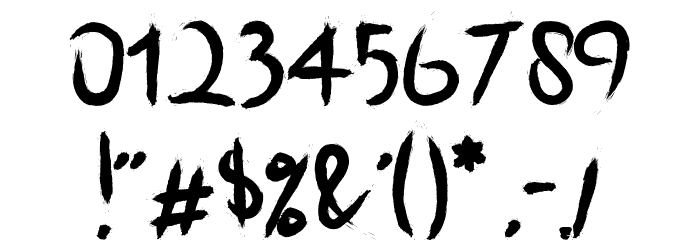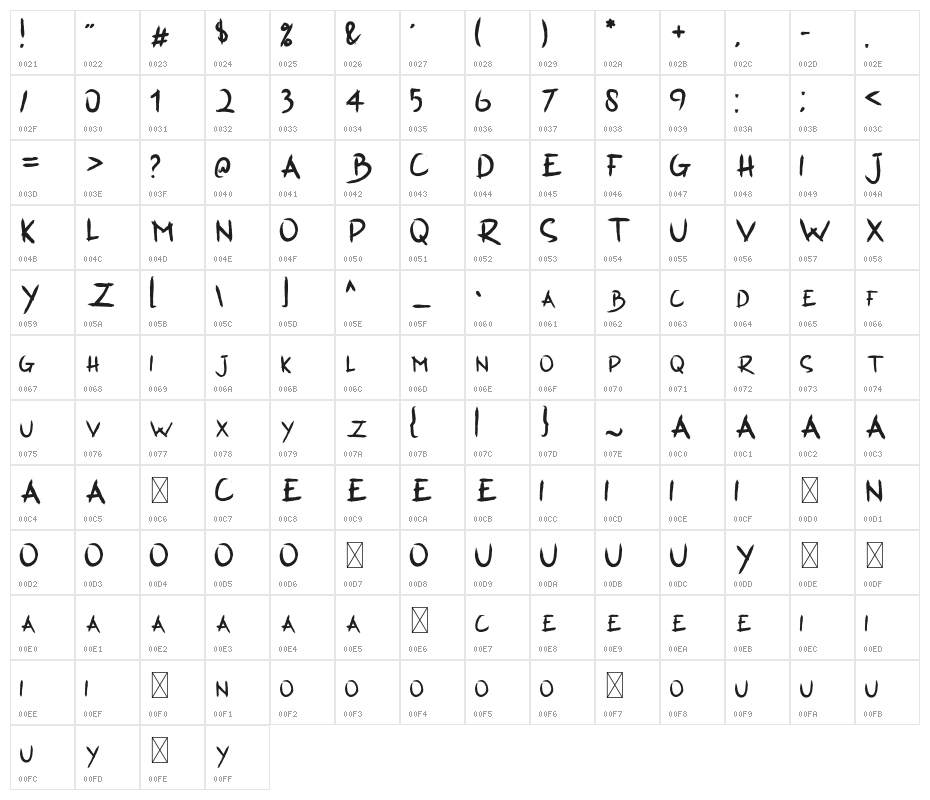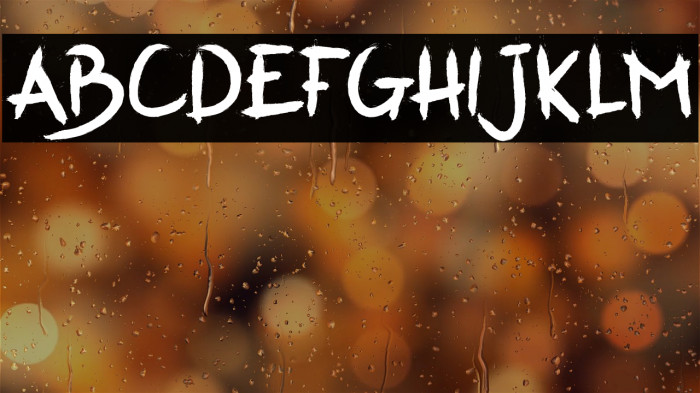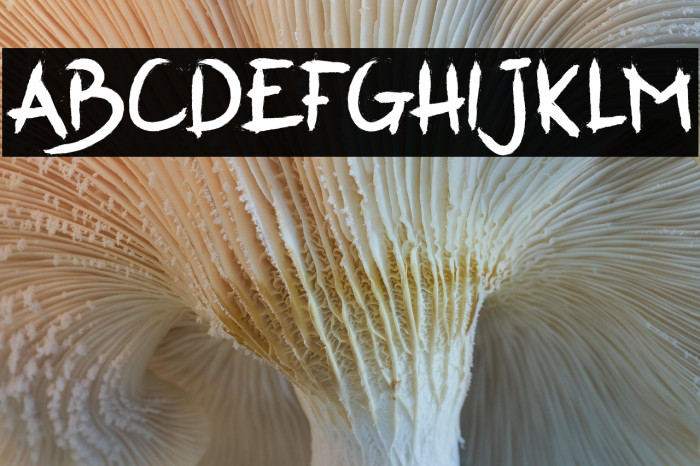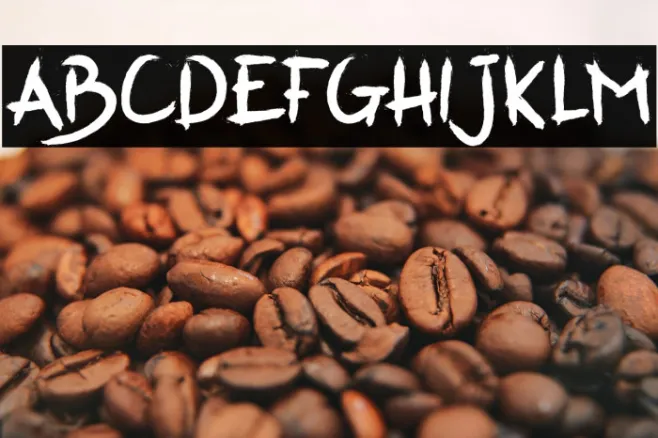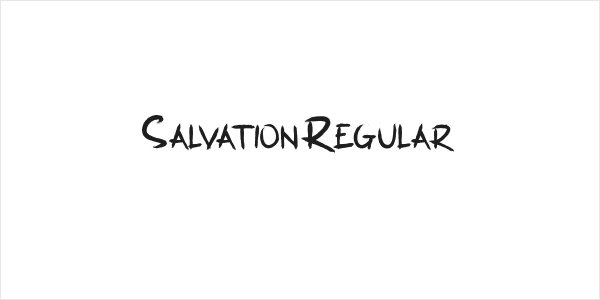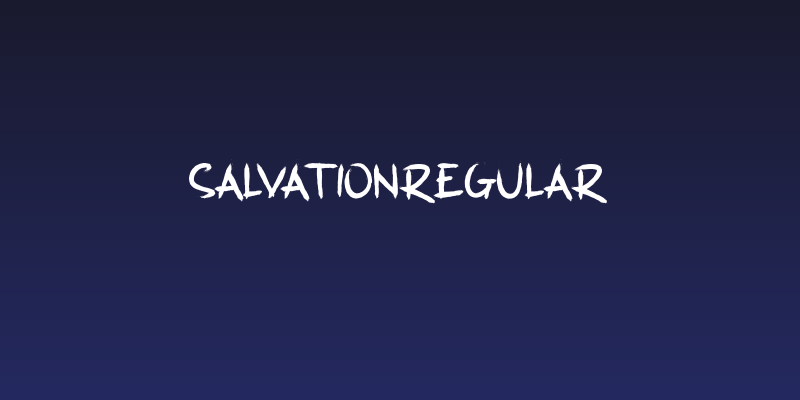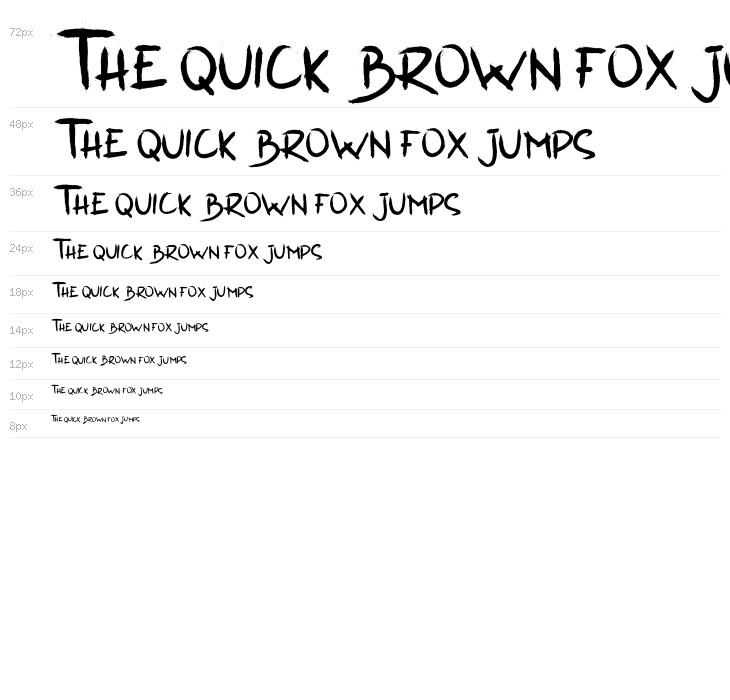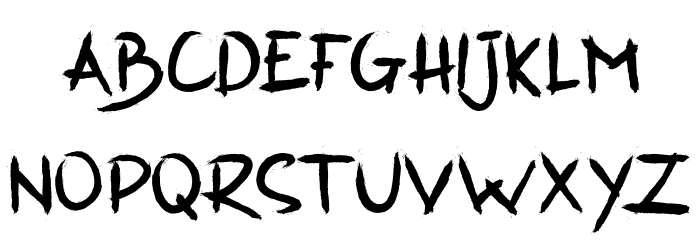
SalvationRegular Font
SalvationRegular Description
This font features a bold, expressive style with a hand-drawn appearance. The strokes are uneven and dynamic, giving it a lively and energetic feel. The characters are slightly slanted, adding to the casual and informal aesthetic. The uppercase and lowercase letters maintain a consistent style, with a rough texture that suggests a brush or marker tool. The numbers and special characters follow the same design principles, ensuring a cohesive look across all elements. This font is ideal for projects that require a personal touch or a creative flair.